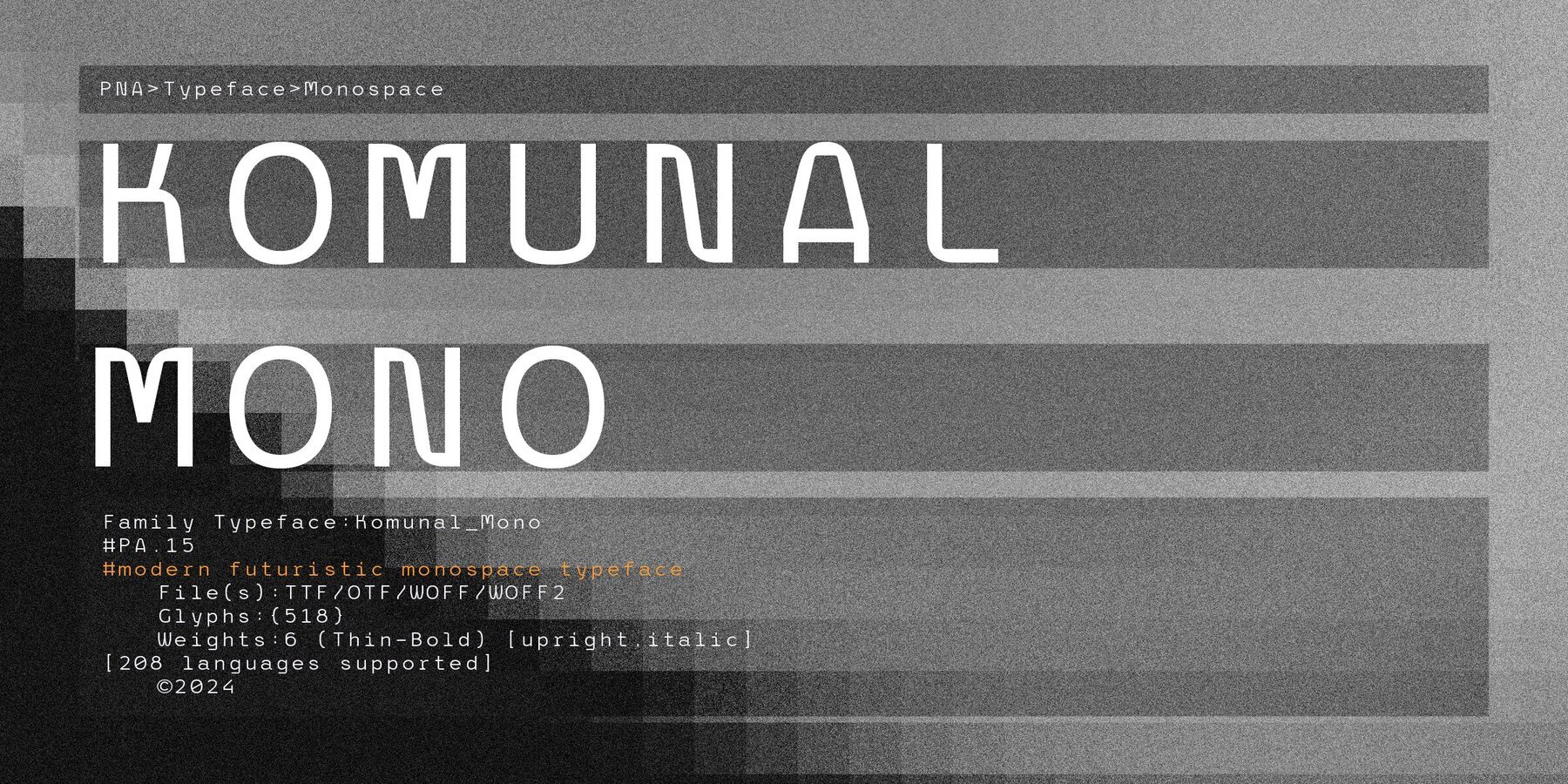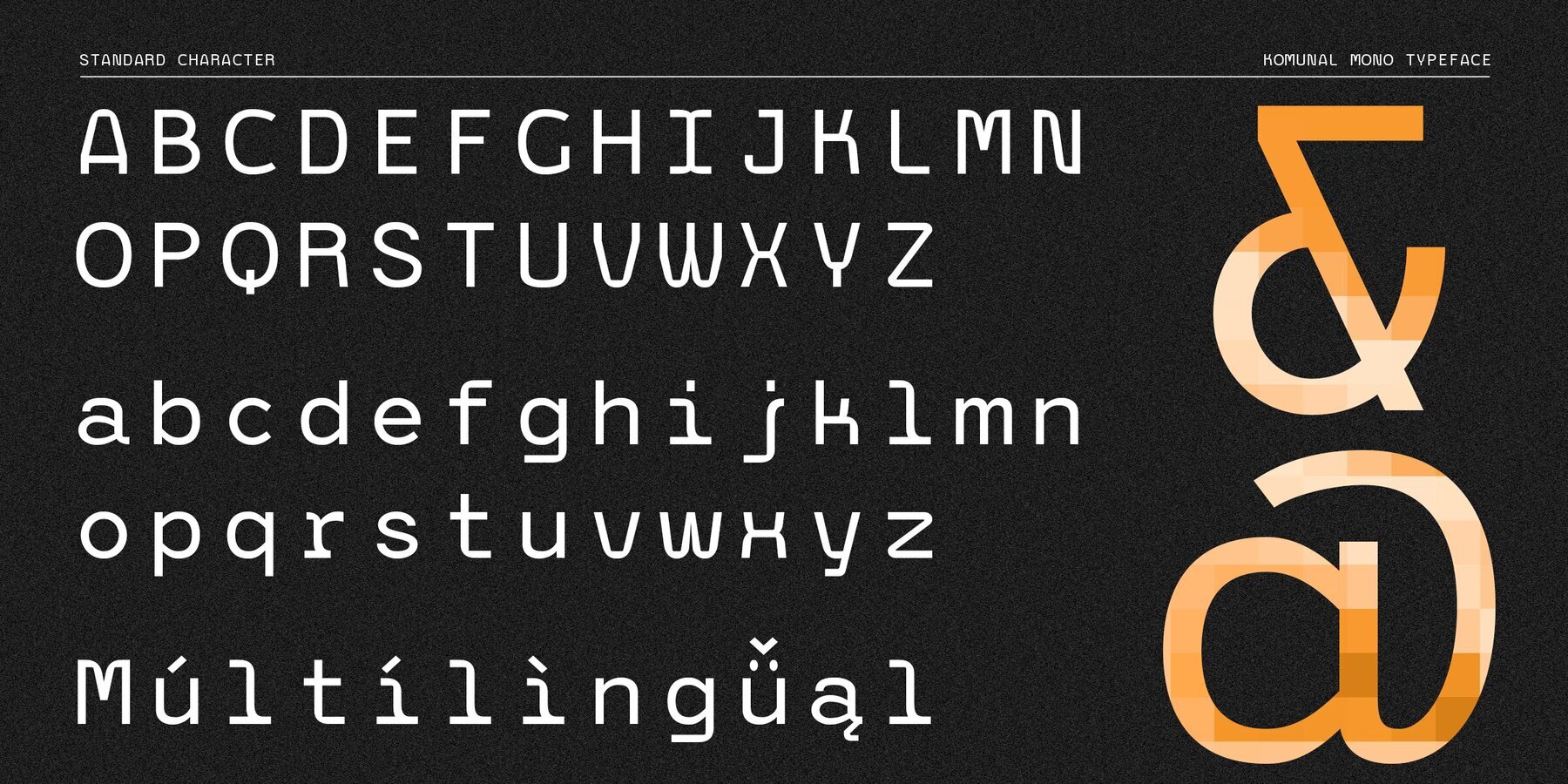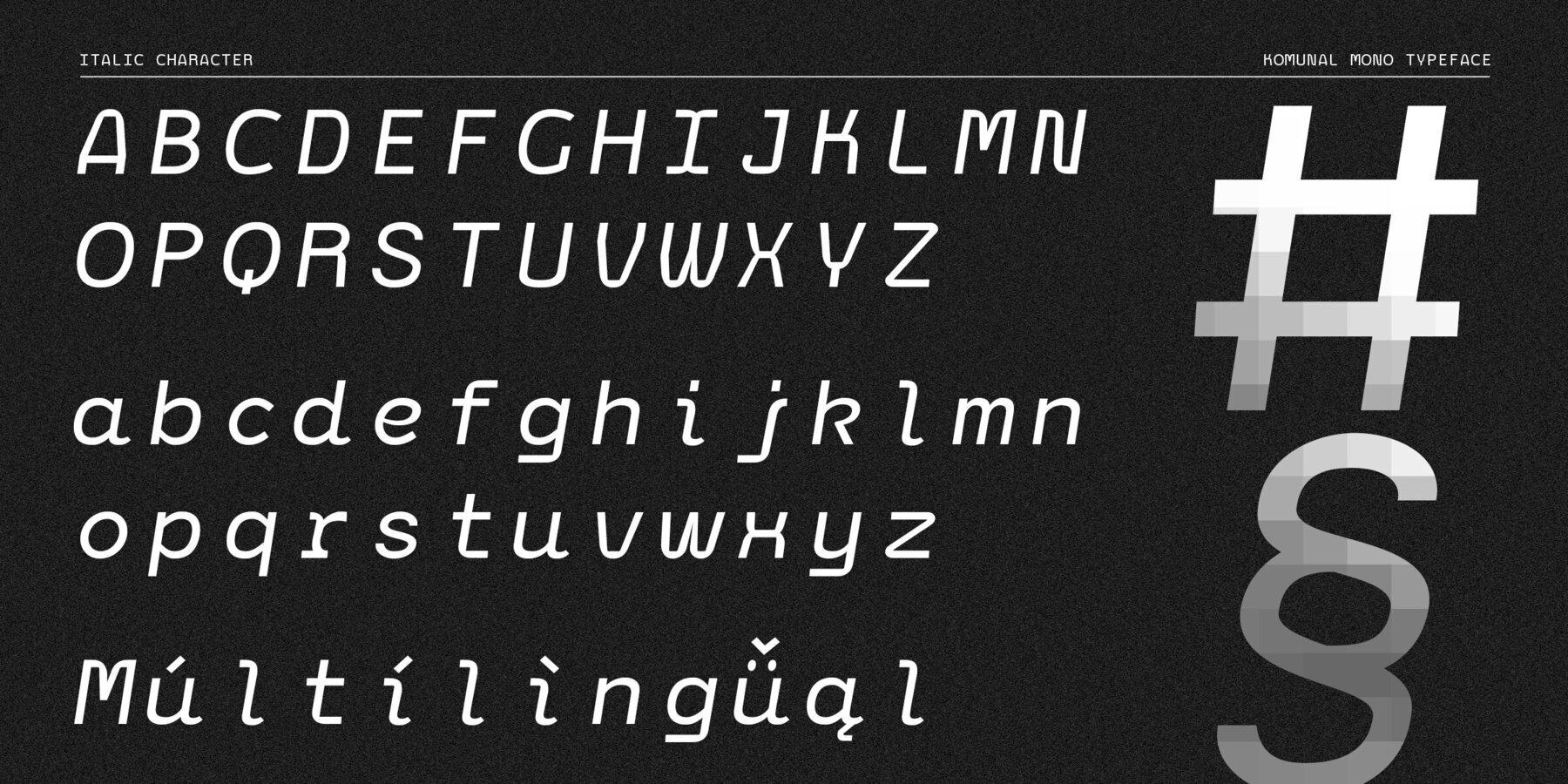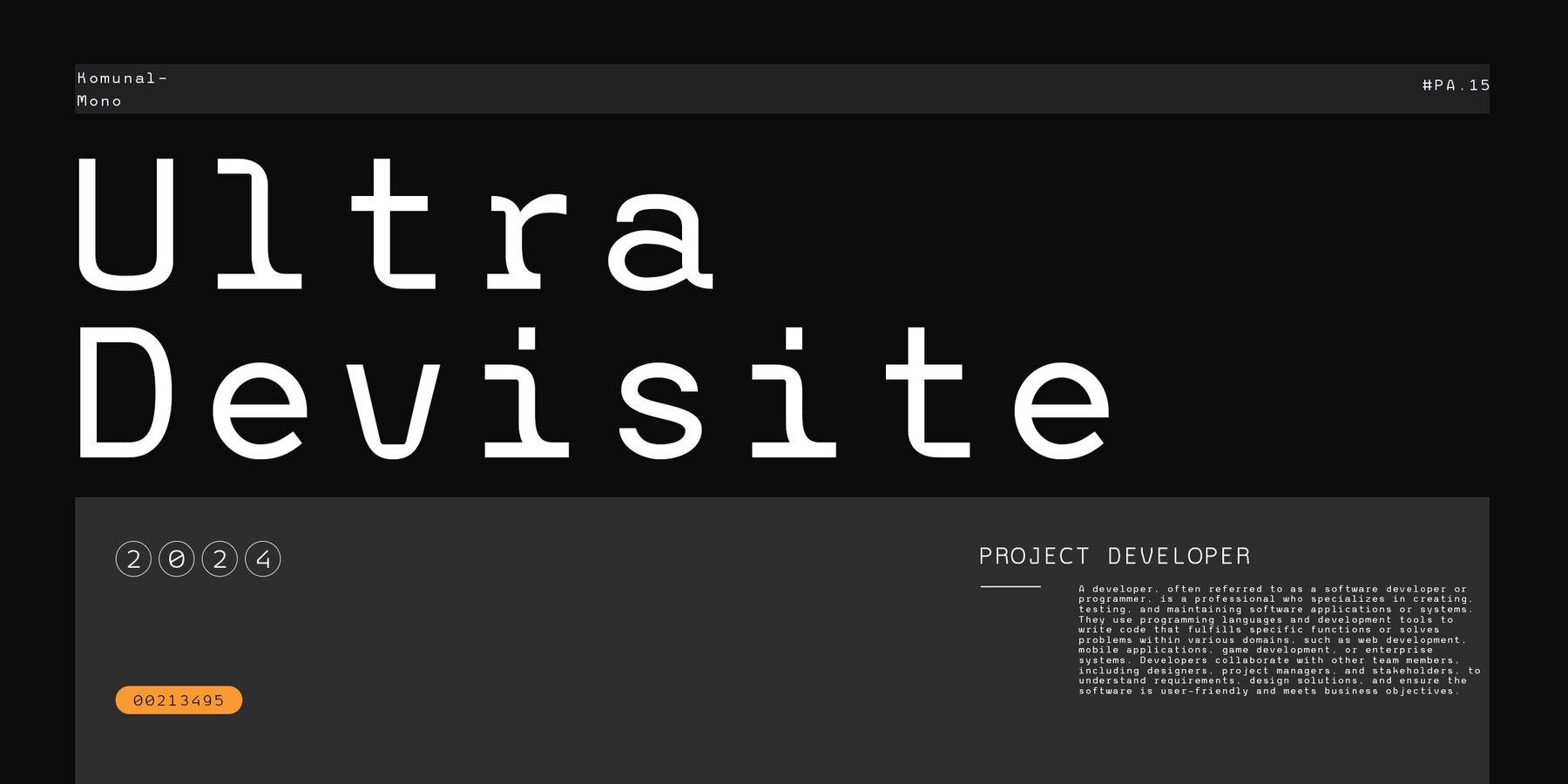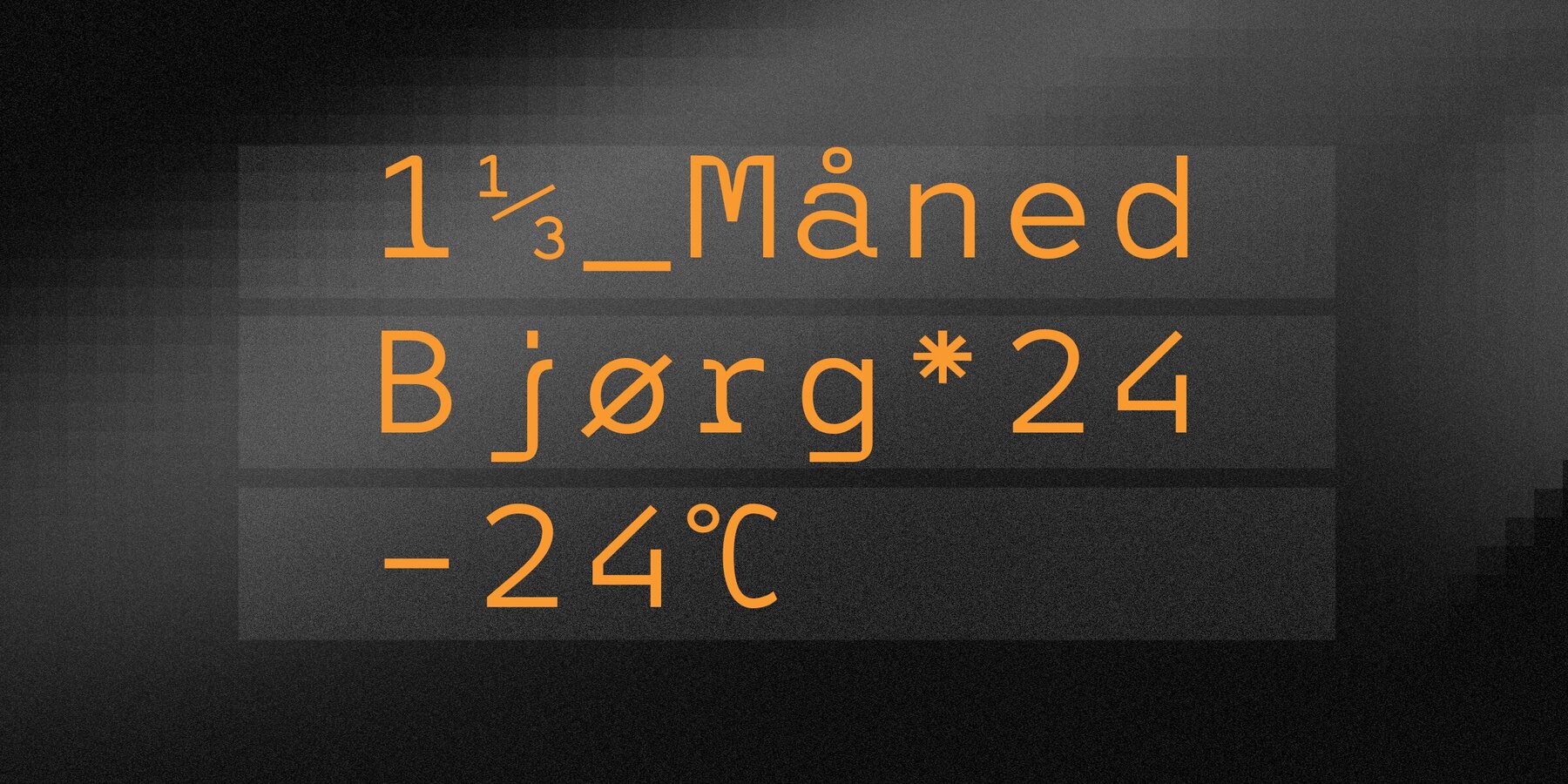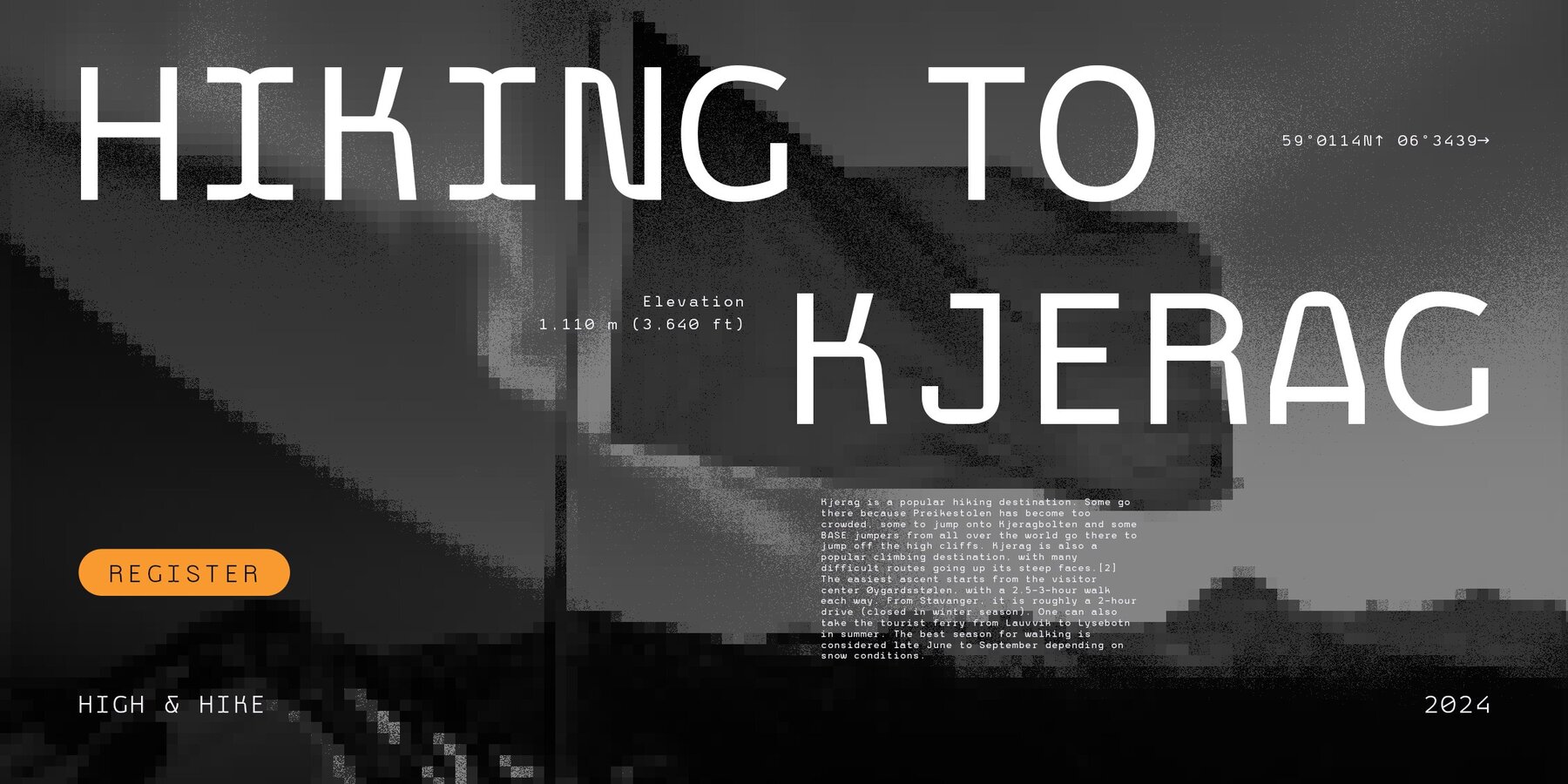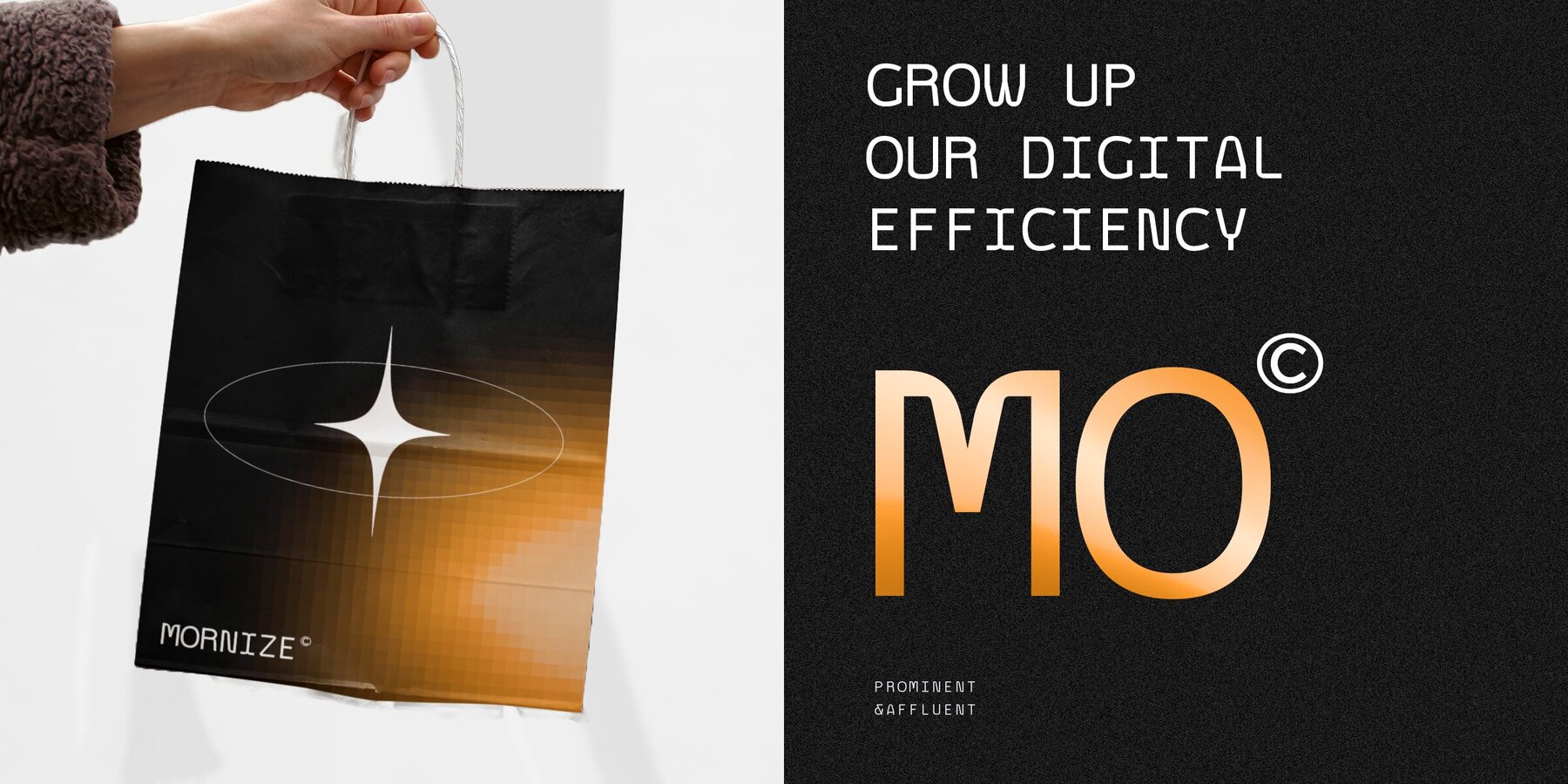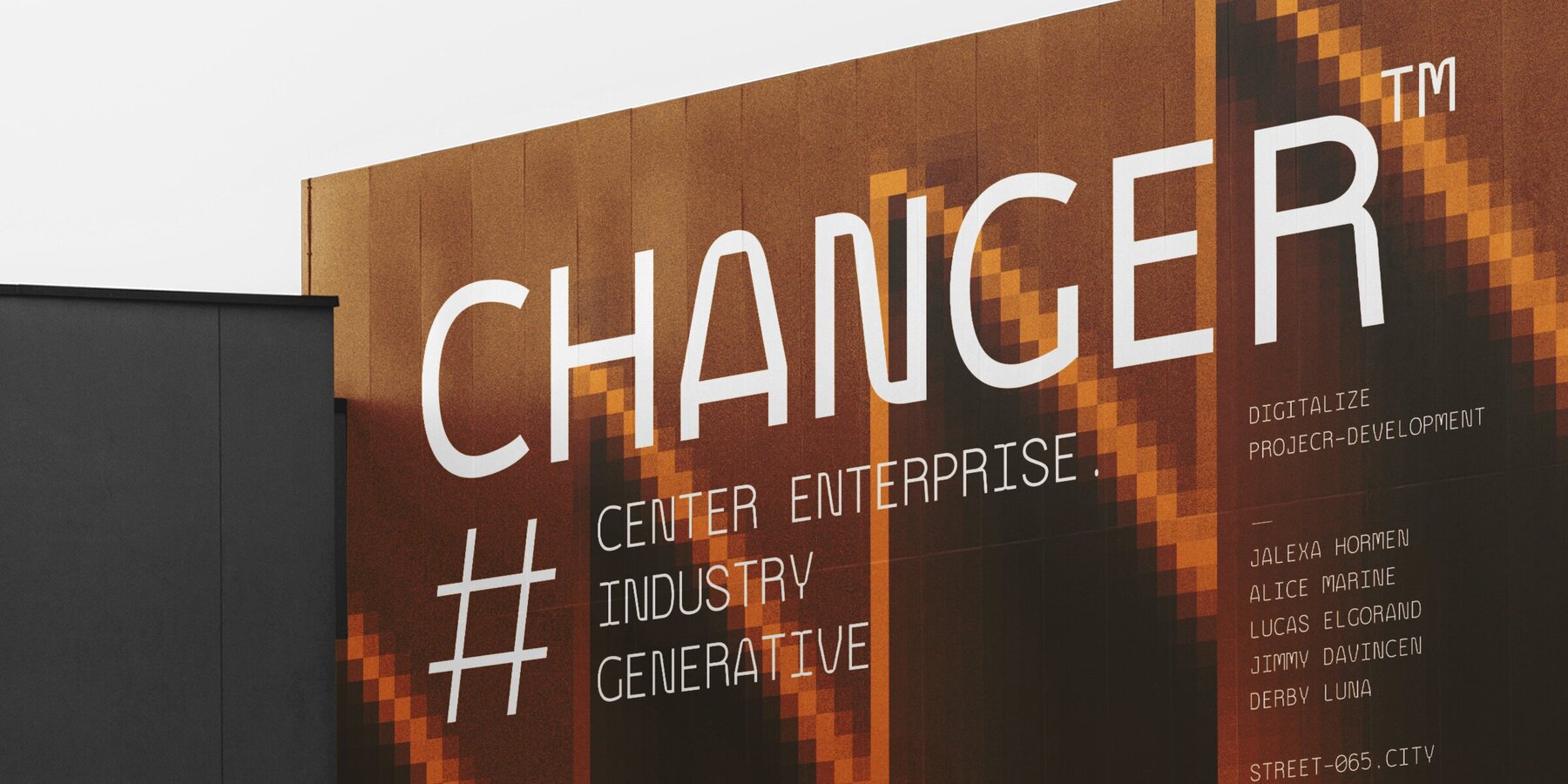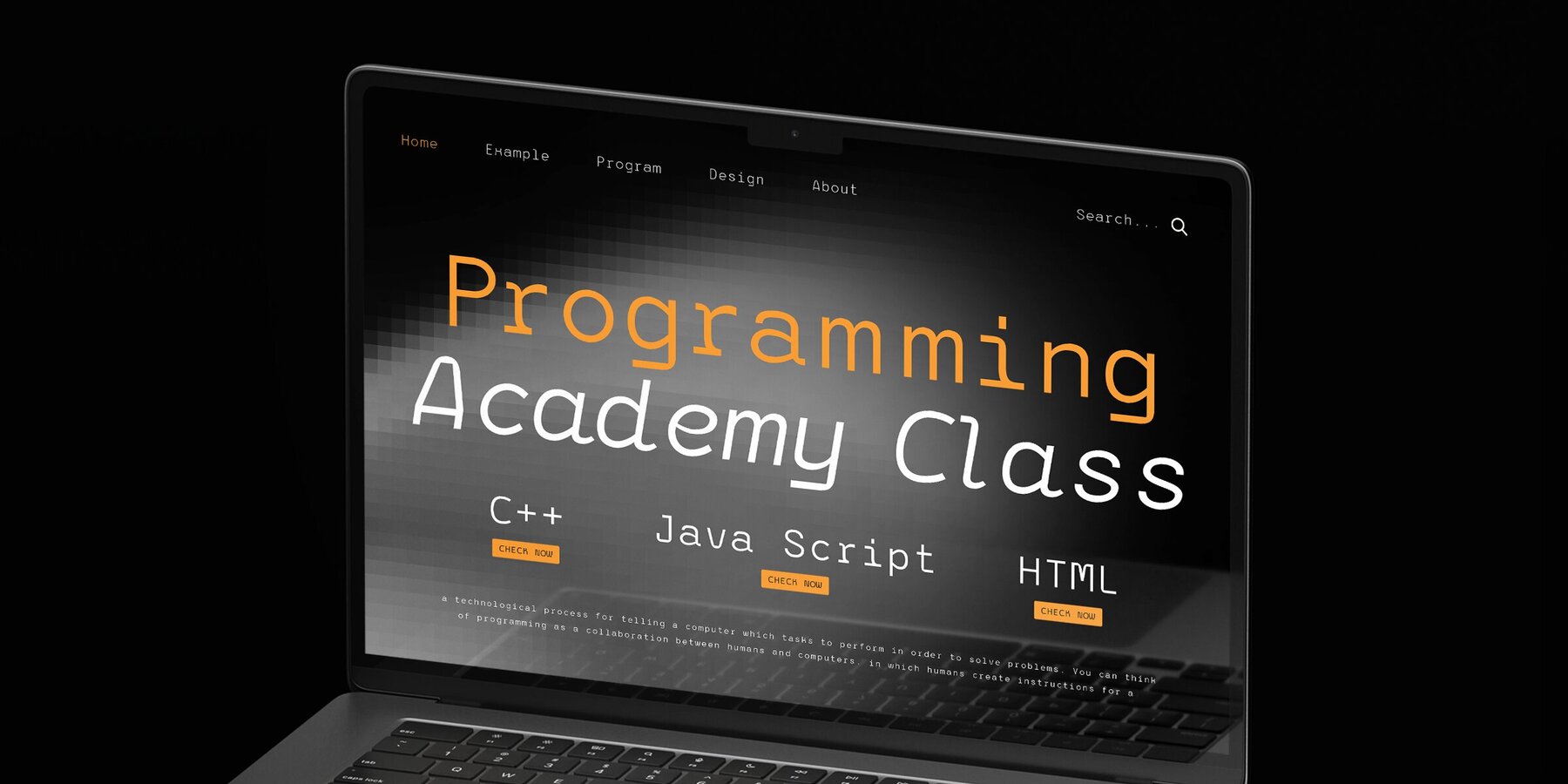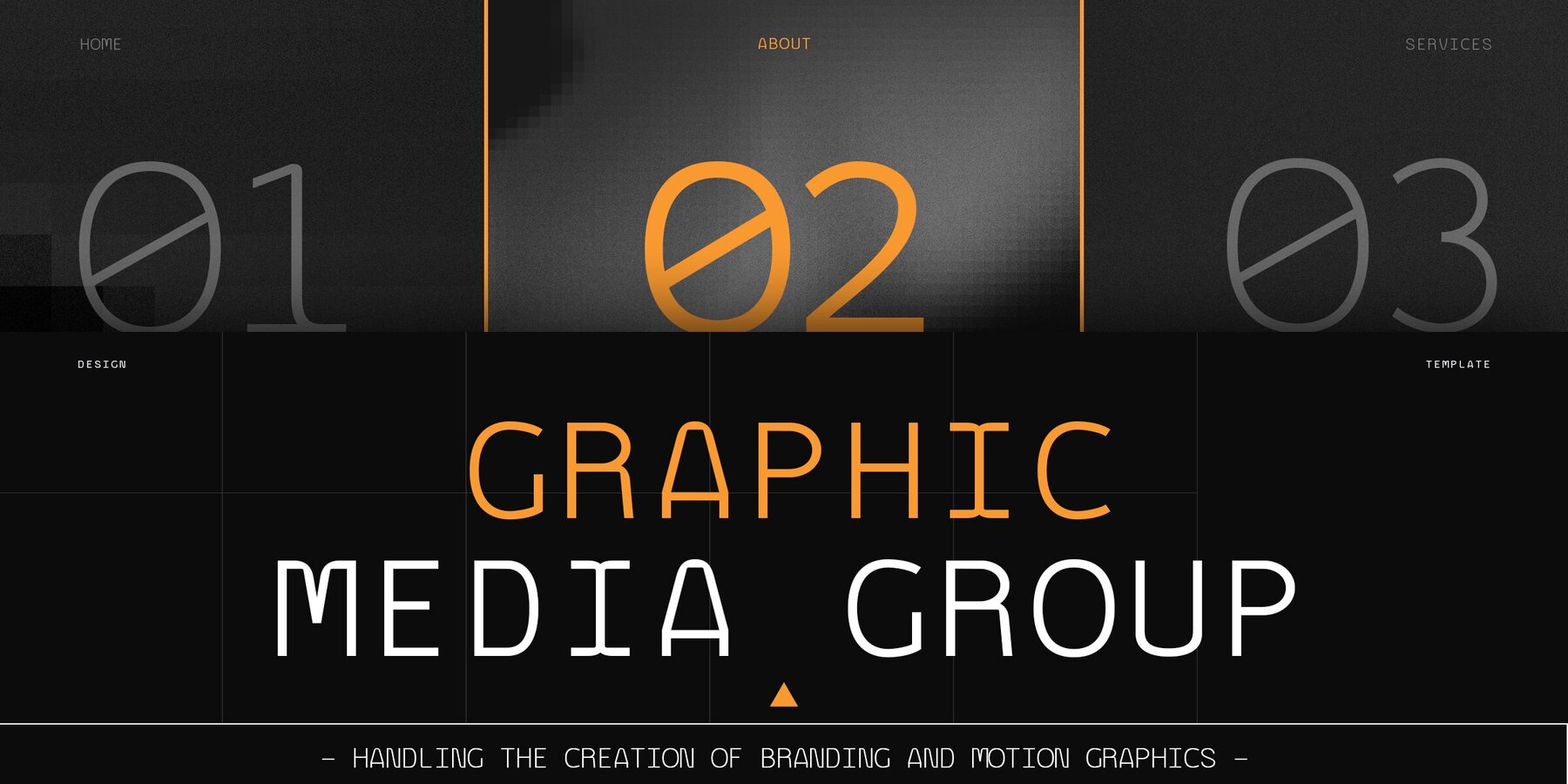
Komunal Mono Font
Komunal Mono redefines modern and futuristic typography with its monospace font family. Inspired by the essence of "Communal," this font offers 8 versatile weights, each featuring its own italic style. Ideal for coding, design projects, and digital media, Komunal combines contemporary style with advanced readability, ensuring your designs stand out with sleek precision.